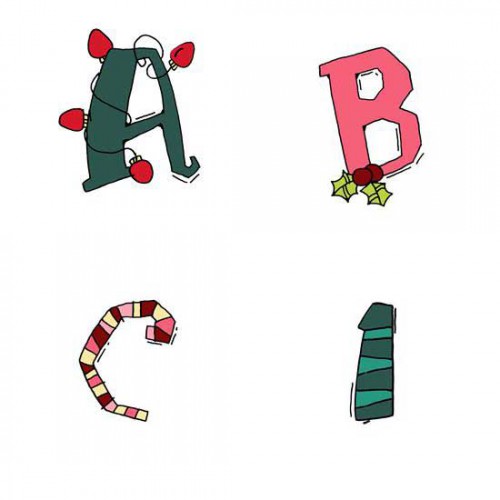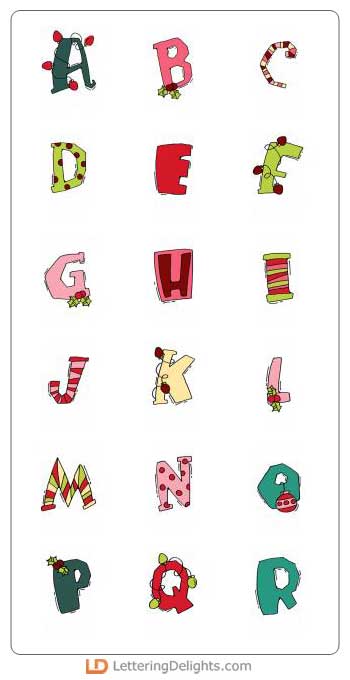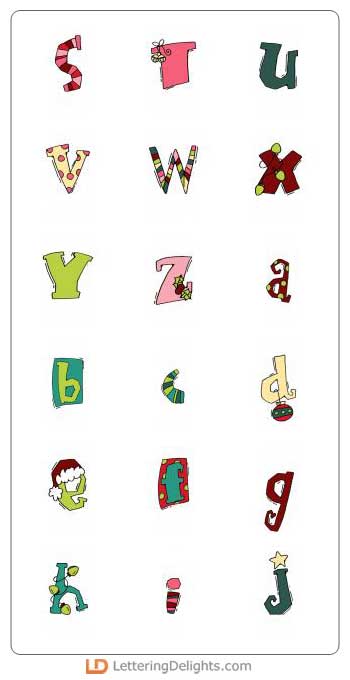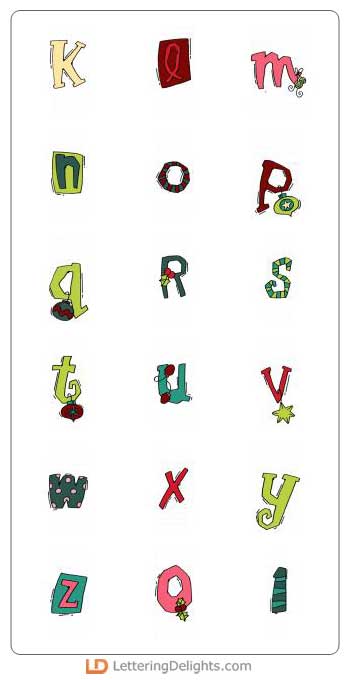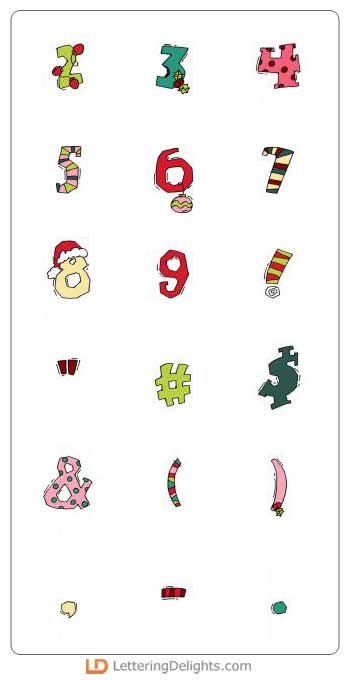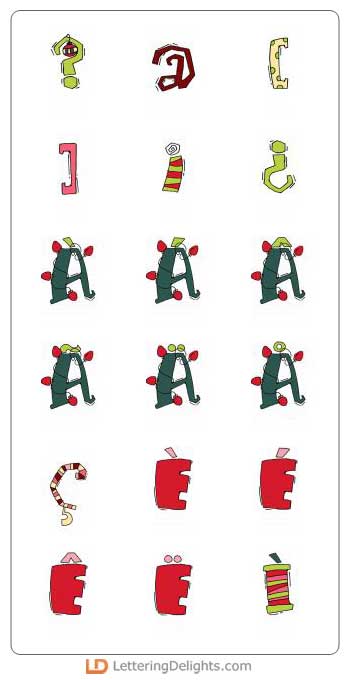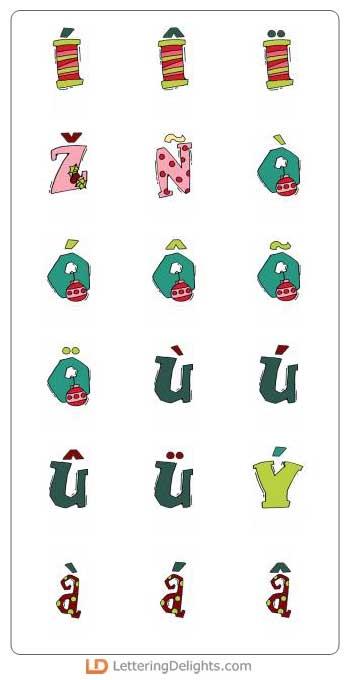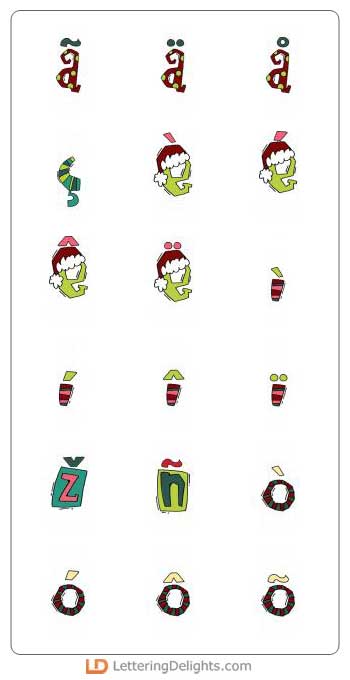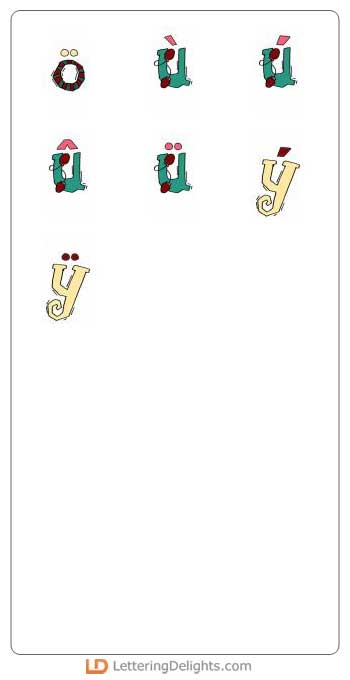
Christmas Fun alphabet is all about enjoying this time of year and the fun memories that are made at the Christmas holiday, whether it be decorating the tree or decorating a fresh batch of gingerbread cookies. Check out the matching Journaling Delights set.